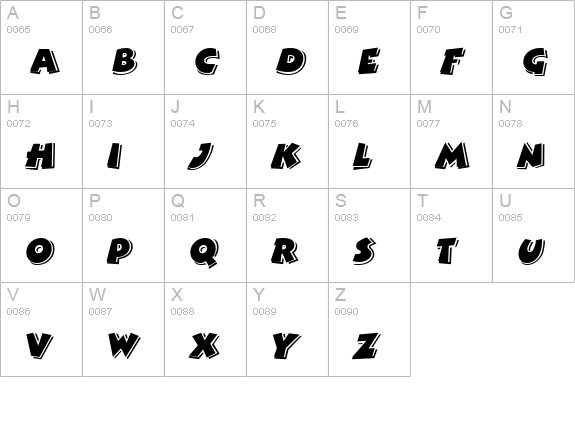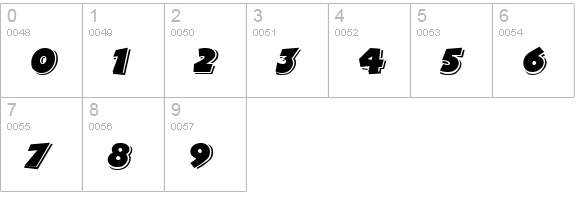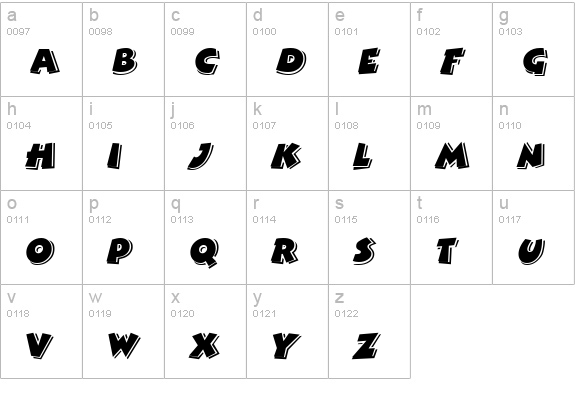
Comic Strip font is a fun and playful typeface that captures the whimsical charm of classic comic book lettering. With its bold lines and dynamic shapes, this font is perfect for adding a touch of humor and excitement to your designs. Whether you're creating a comic strip, poster, or logo, Comic Strip font will bring a lively and animated look to your project. Best of all, Comic Strip font is available for free download at FontsMarket.com. This means you can easily access and use this delightful font in your creative projects without any cost. So unleash your creativity and give your designs a playful and energetic flair with Comic Strip font today!